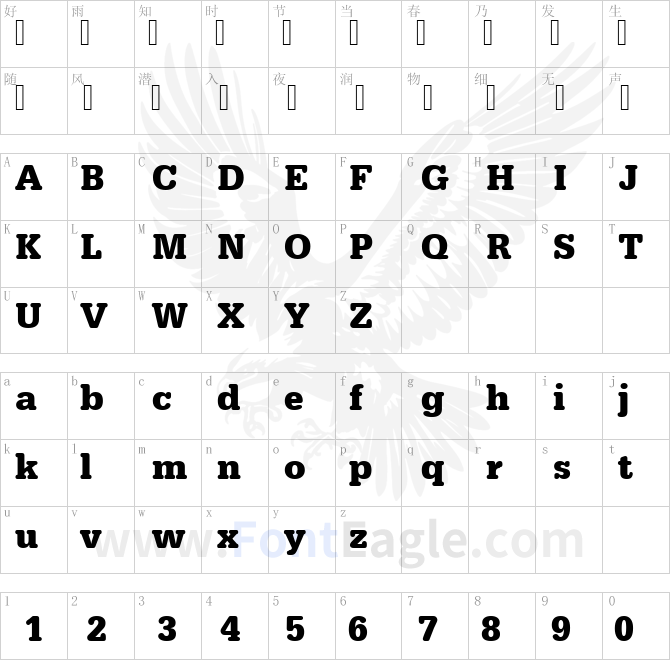
URWTypewriterTNar-Bold is a great font, widely used in graphic design, single-page menu design, poster design and other fields, and is deeply loved by designers.URWTypewriterTNar-Bold download.